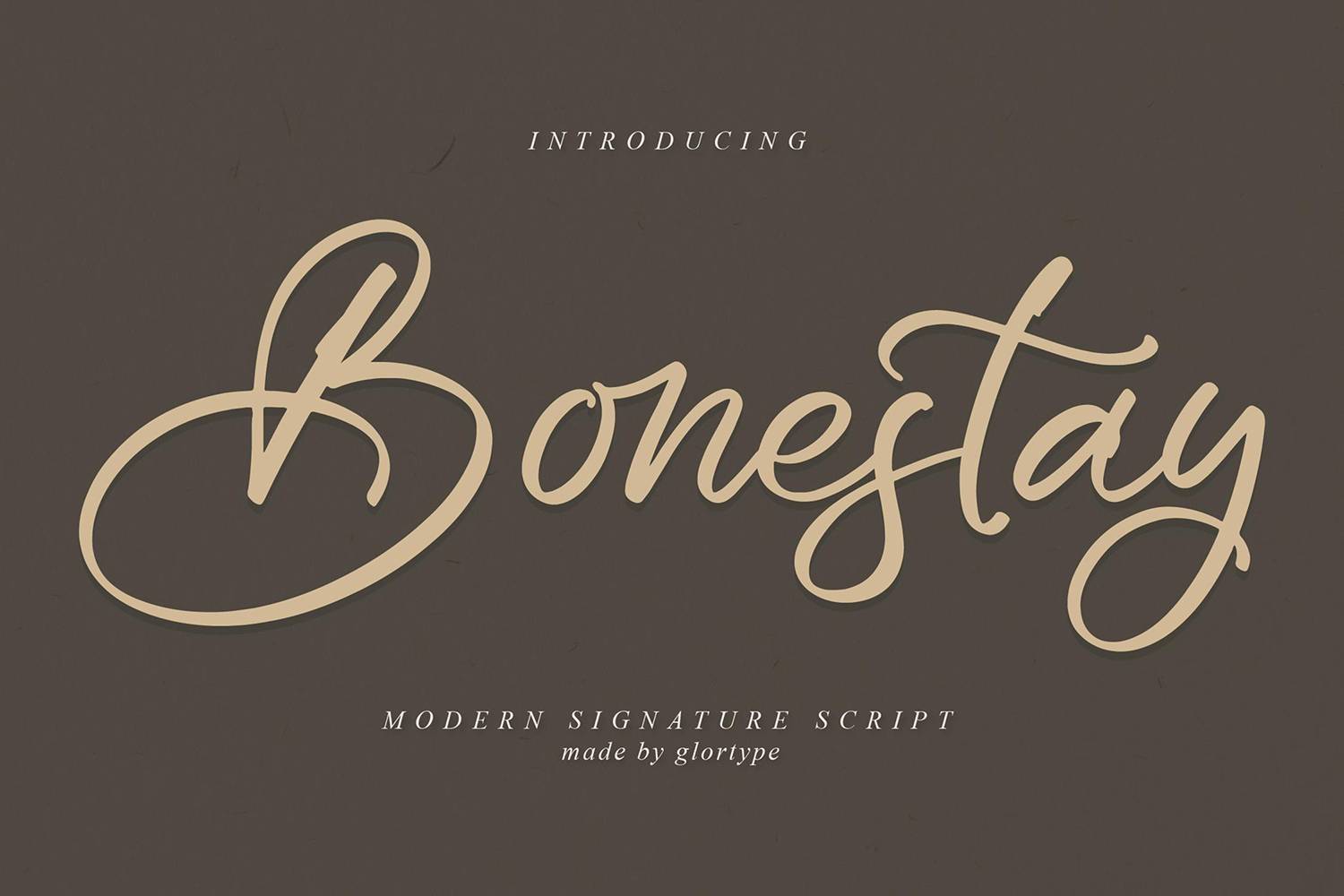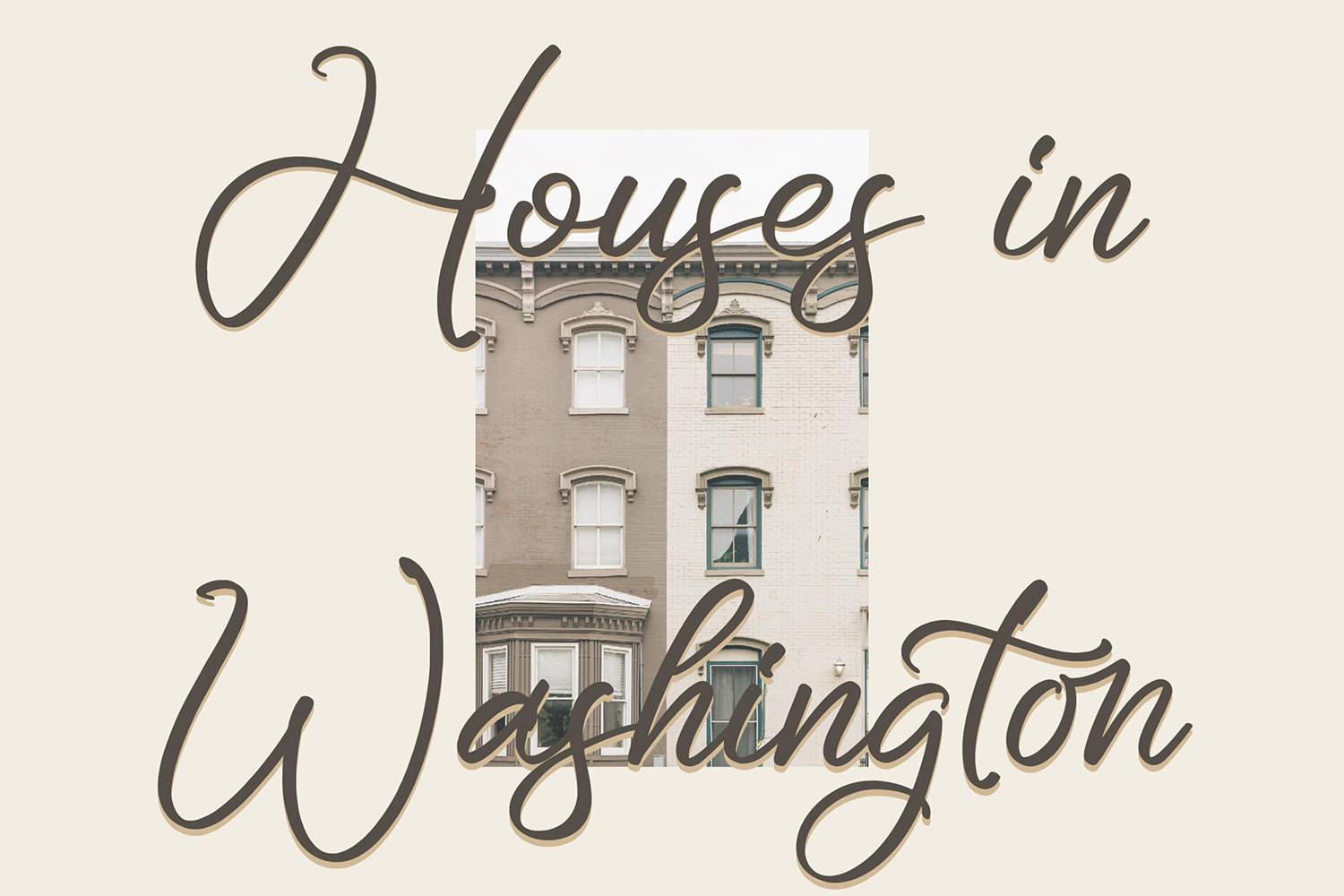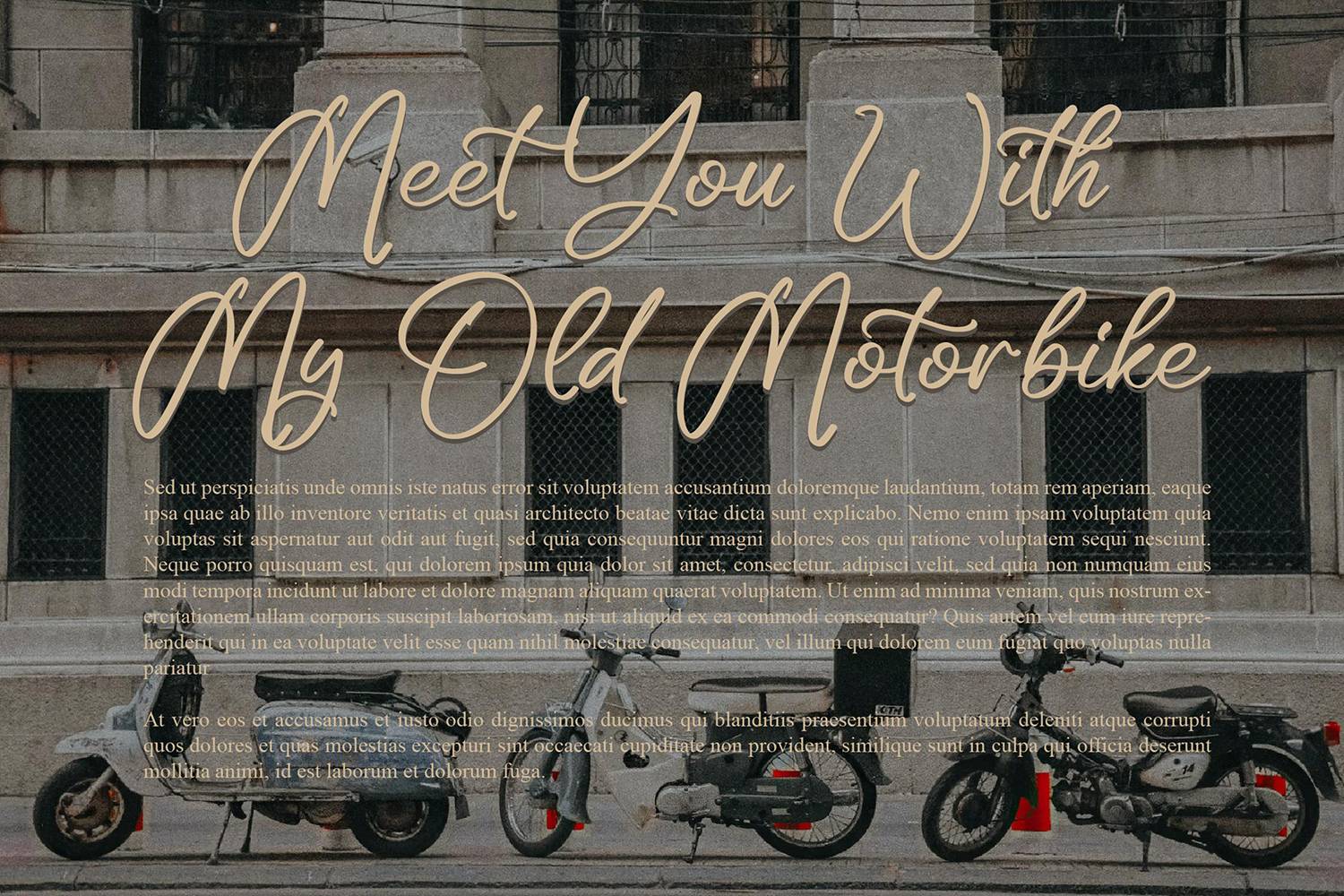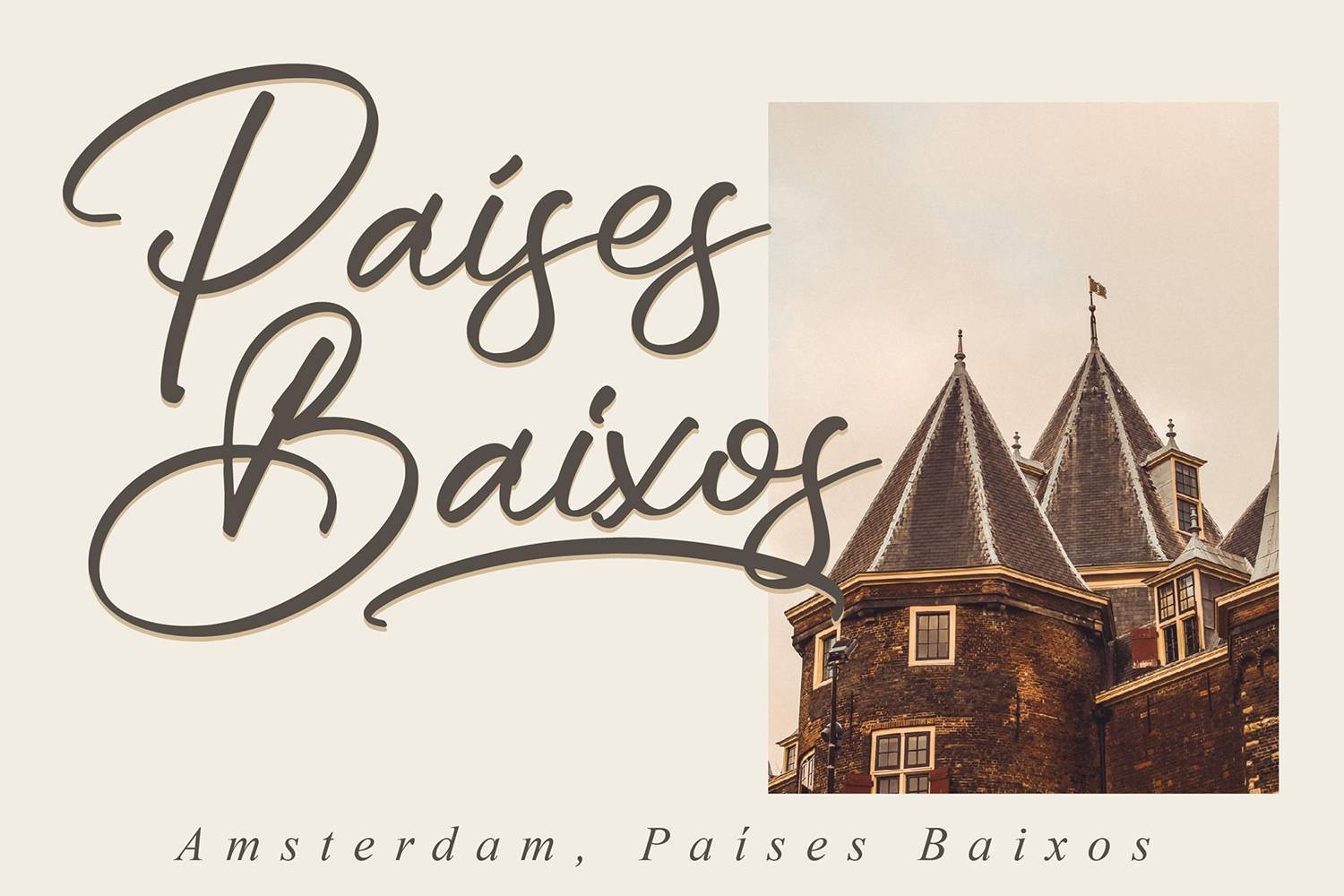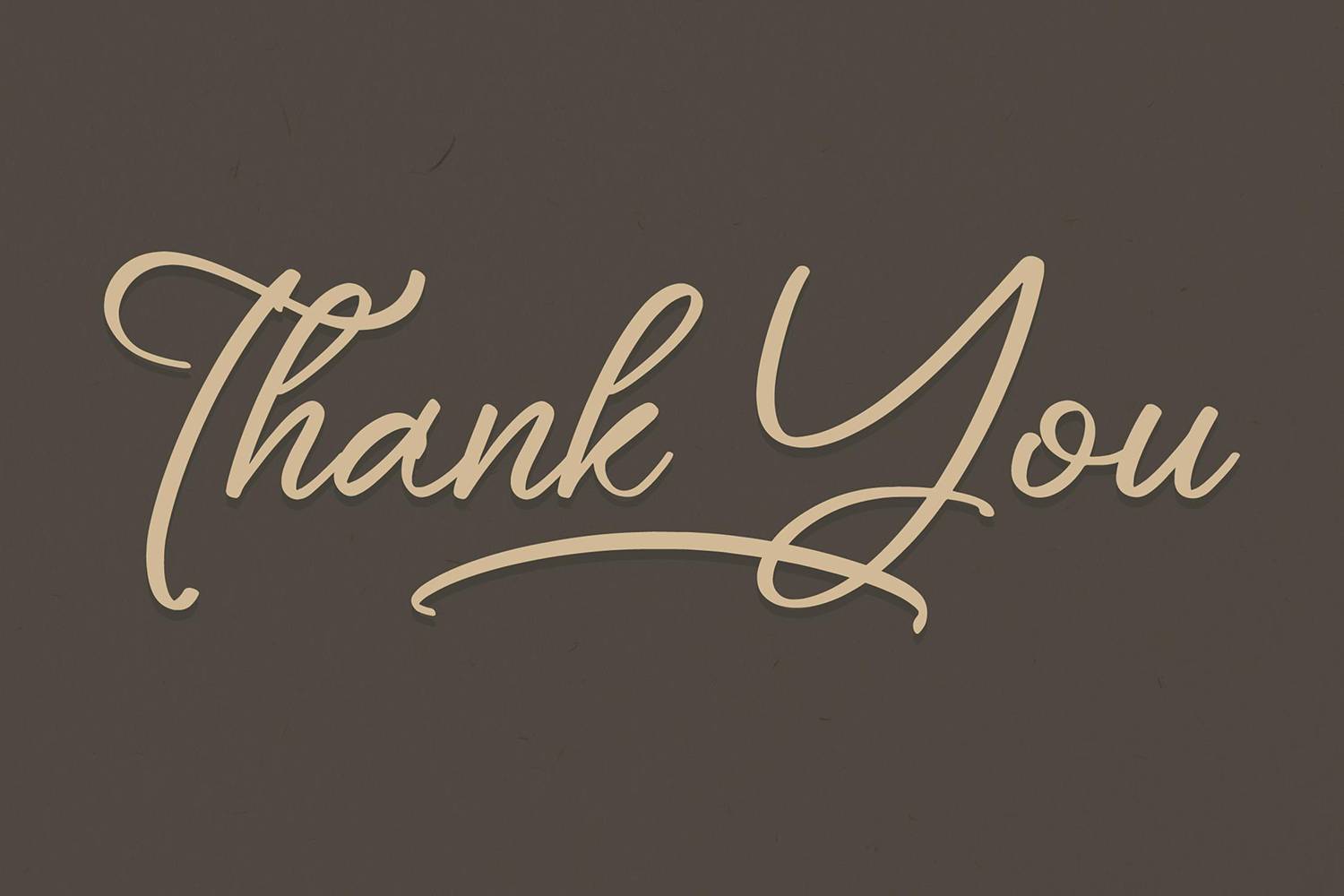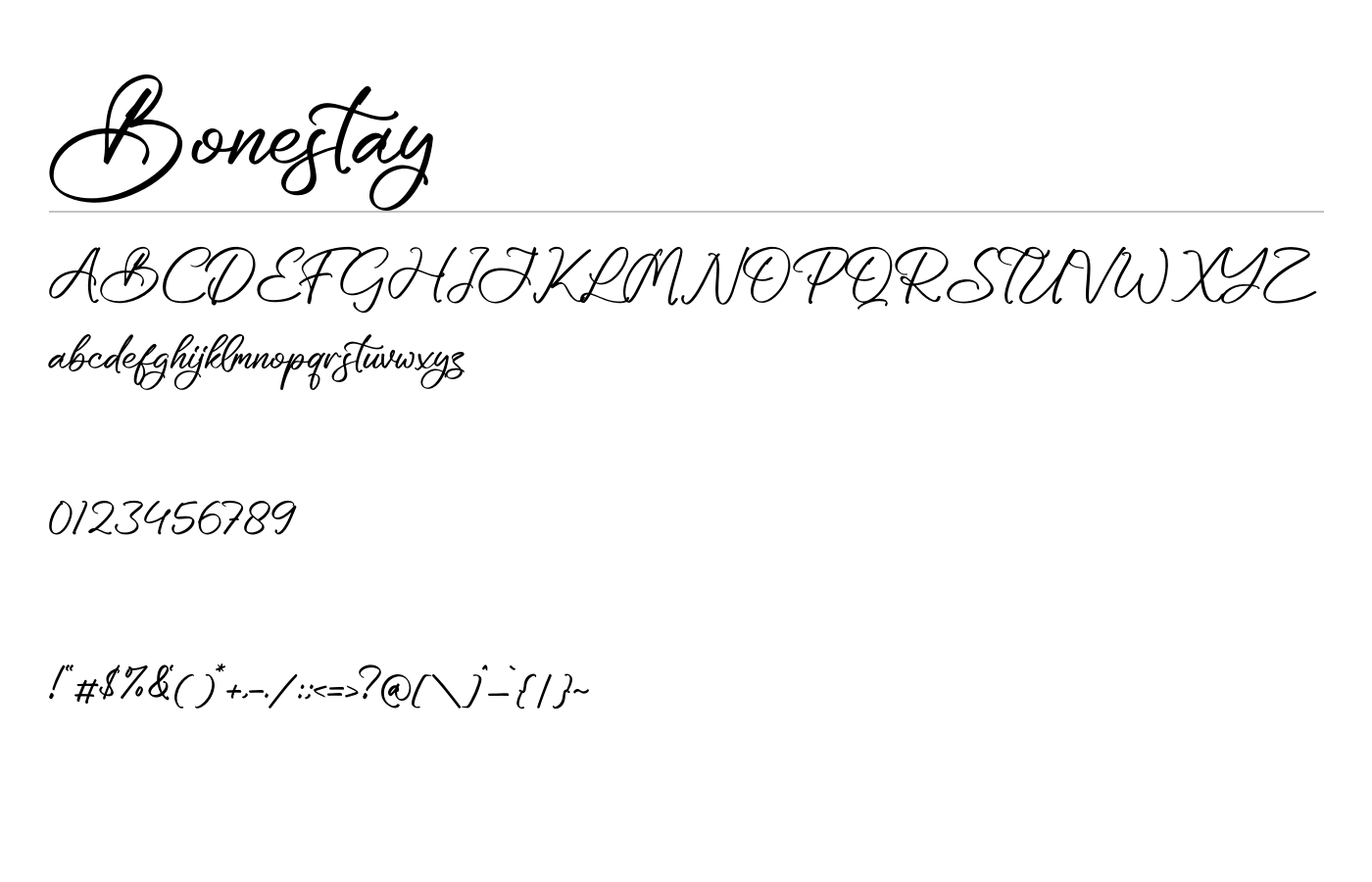
Bonestay is a delicate script font with elegant, flowing letterforms that bring a handwritten, personal touch to any design. Its thin strokes and graceful curves make it ideal for invitations, branding, and projects that seek a sophisticated yet approachable feel. Perfect for fashion, wedding, and lifestyle brands, Bonestay adds a stylish and refined charm to headlines and decorative text.
Bonestay Font
About Bonestay Font